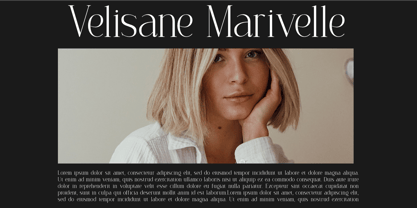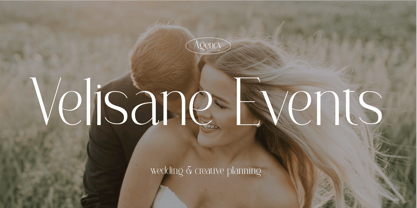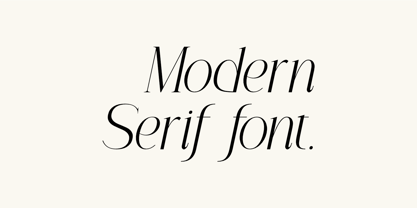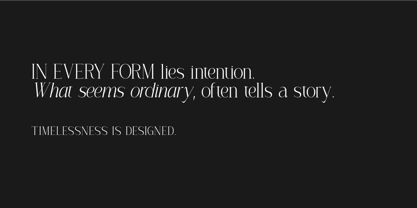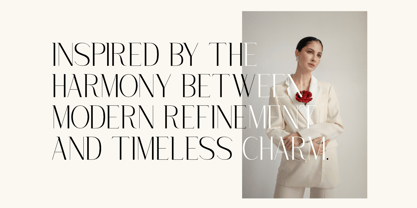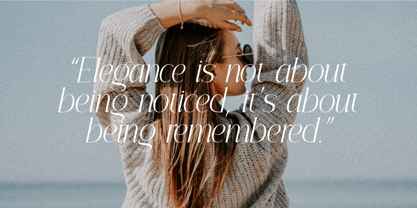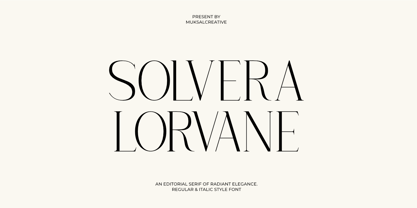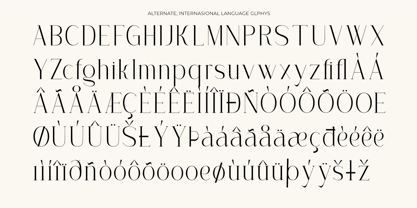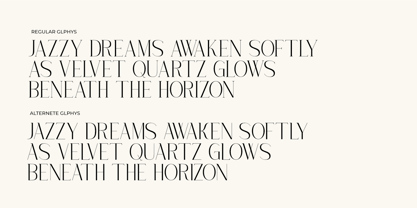
Solvera Lorvane
by Muksal Creatives
The Solvera Lorvane Font Family was designed by Muksalmina and published by Muksal Creatives. Solvera Lorvane contains 2 styles and family package options.
Solvera Lorvane is an elegant editorial serif that blends timeless sophistication with modern artistry. Designed for luxury branding, magazines, and creative projects, this typeface captures the essence of quiet confidence and refined beauty. Its balanced contrast, graceful curves, and delicate details make it perfect for high-end logos, wedding stationery, fashion editorials, and premium packaging.